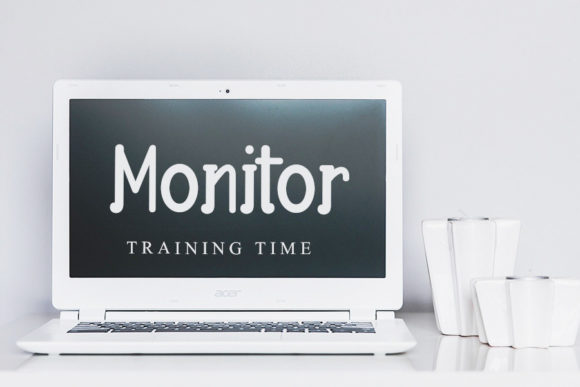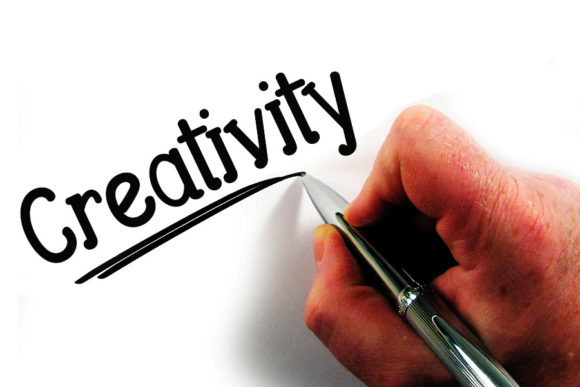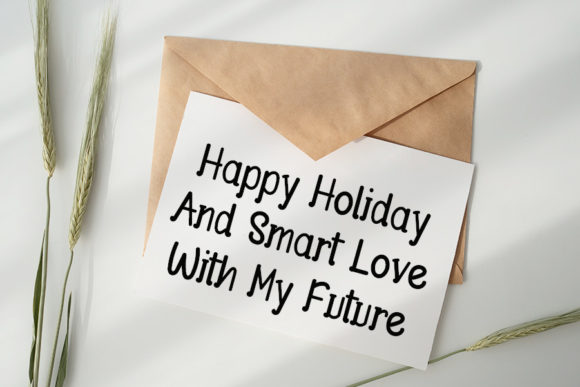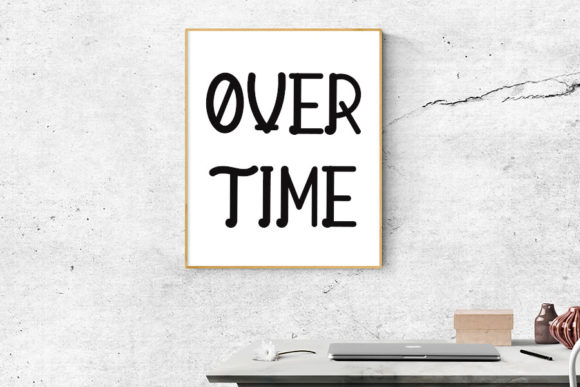
Introducing Happy Monday Font: The Quirky and Laid-Back Handwritten Font You Need
Are you tired of using the same old fonts in your designs? Do you want to add a touch of personality and whimsy to your creations? Look no further than Happy Monday Font, a quirky and laid-back handwritten font that’s sure to become a favorite in your font library. In this article, we’ll dive into the features and benefits of Happy Monday Font, and explore how it can enhance your designs and take your creativity to the next level.
What is Happy Monday Font?
Happy Monday Font is a unique and charming handwritten font that’s perfect for designers, crafters, and anyone looking to add a personal touch to their creations. With its quirky and laid-back vibe, this font is sure to stand out from the crowd and make your designs shine. Whether you’re working on a project for a client or creating something for personal use, Happy Monday Font is a versatile and fun font that’s sure to delight.
Features of Happy Monday Font
So, what makes Happy Monday Font so special? Here are just a few of its key features:
• Handwritten style: Happy Monday Font has a warm and personal handwritten style that’s perfect for adding a touch of personality to your designs.
• Quirky and laid-back vibe: This font has a fun and carefree vibe that’s sure to make your designs stand out from the crowd.
• Versatile: Happy Monday Font is perfect for a wide range of projects, from branding and advertising to crafting and DIY projects.
• Easy to read: Despite its quirky style, Happy Monday Font is easy to read and understand, making it perfect for use in body text and headlines.
Benefits of Using Happy Monday Font
So, why should you choose Happy Monday Font for your next project? Here are just a few of the benefits of using this amazing font:
• Adds personality to your designs: Happy Monday Font is the perfect way to add a touch of personality and whimsy to your designs.
• Stand out from the crowd: With its quirky and laid-back vibe, Happy Monday Font is sure to make your designs stand out from the crowd.
• Perfect for creative projects: Whether you’re working on a crafting project or creating something for a client, Happy Monday Font is a great choice.
How to Use Happy Monday Font
So, how can you use Happy Monday Font in your designs? Here are a few ideas to get you started:
• Branding and advertising: Use Happy Monday Font to create eye-catching logos, ads, and marketing materials that stand out from the crowd.
• Crafting and DIY projects: Add a personal touch to your crafting and DIY projects with Happy Monday Font.
• Social media graphics: Use Happy Monday Font to create fun and engaging social media graphics that showcase your personality.
• Web design: Use Happy Monday Font to add a touch of personality to your website and make it stand out from the crowd.